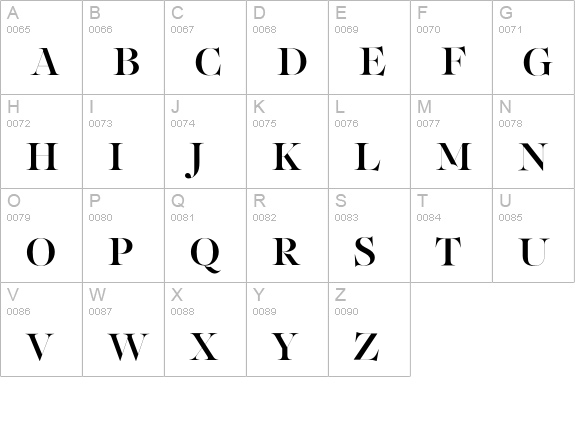
PFRegalFinessePro-Medium is a balanced, medium-weight variant in the PFRegalFinessePro typeface family \xE2\x80\x94 well suited to sub-headlines, navigation, and balanced editorial work.
PFRegalFinessePro-Medium is a sophisticated and elegant font that exudes a sense of class and refinement. Its medium weight strikes the perfect balance between readability and style, making it ideal for a wide range of design projects. The clean lines and intricate details of this font add a touch of luxury to any text, making it perfect for branding, editorial design, and more. And the best part? PFRegalFinessePro-Medium is freely available to download at FontsMarket.com. So whether you're a designer looking to elevate your projects or a business owner seeking a font that will make your brand stand out, PFRegalFinessePro-Medium is the perfect choice. Download it today and add a touch of sophistication to your designs.